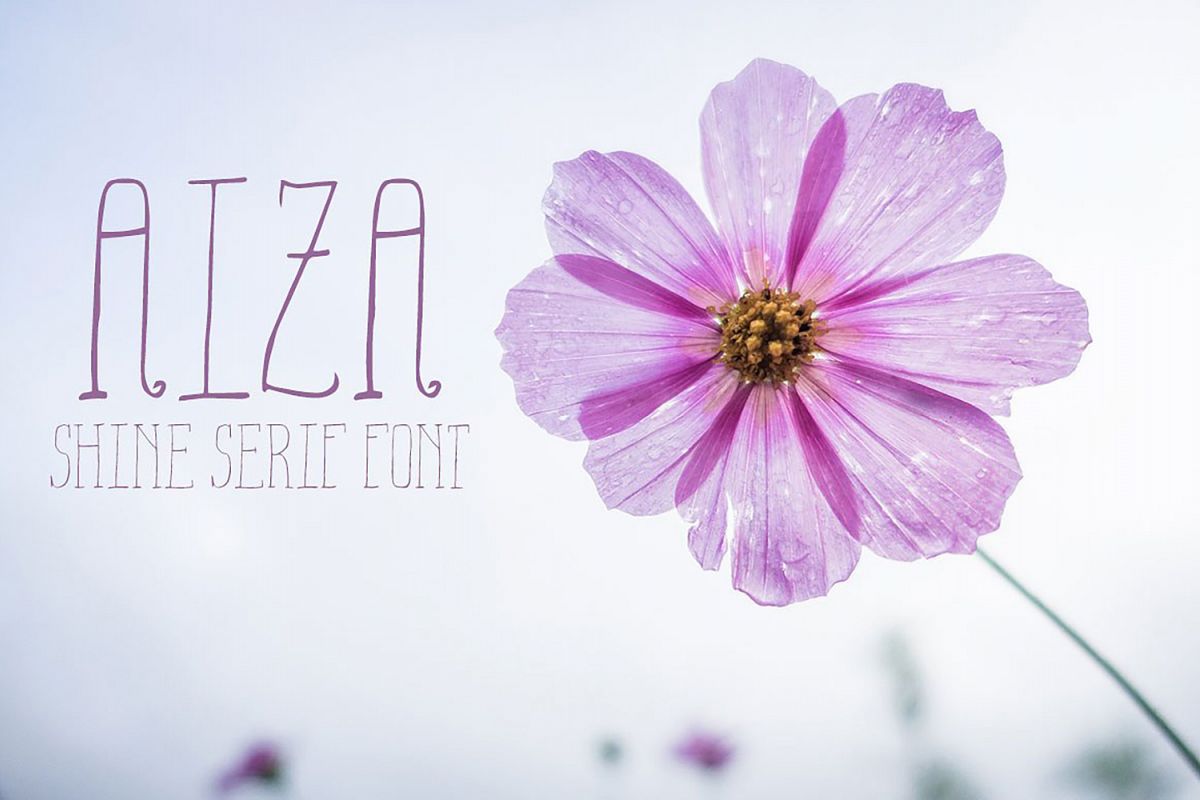
Aiza Shine Serif Regular Font
Aiza Shine Serif Regular Font is Hand Lettered font infused with fun and shine. It can be combined in many ways with other script and regular fonts. To add even more fun we’ve included a special Aiza Shine Serif Ornament Extra font that has 8 ribbons.Aiza Shine is perfect for quotes, t-shirts, book covers, posters, packaging projects, serif font is fully unicode mapped so you can use them in any application.Features: Capitals, Numerals and Punctuation.Included Files: